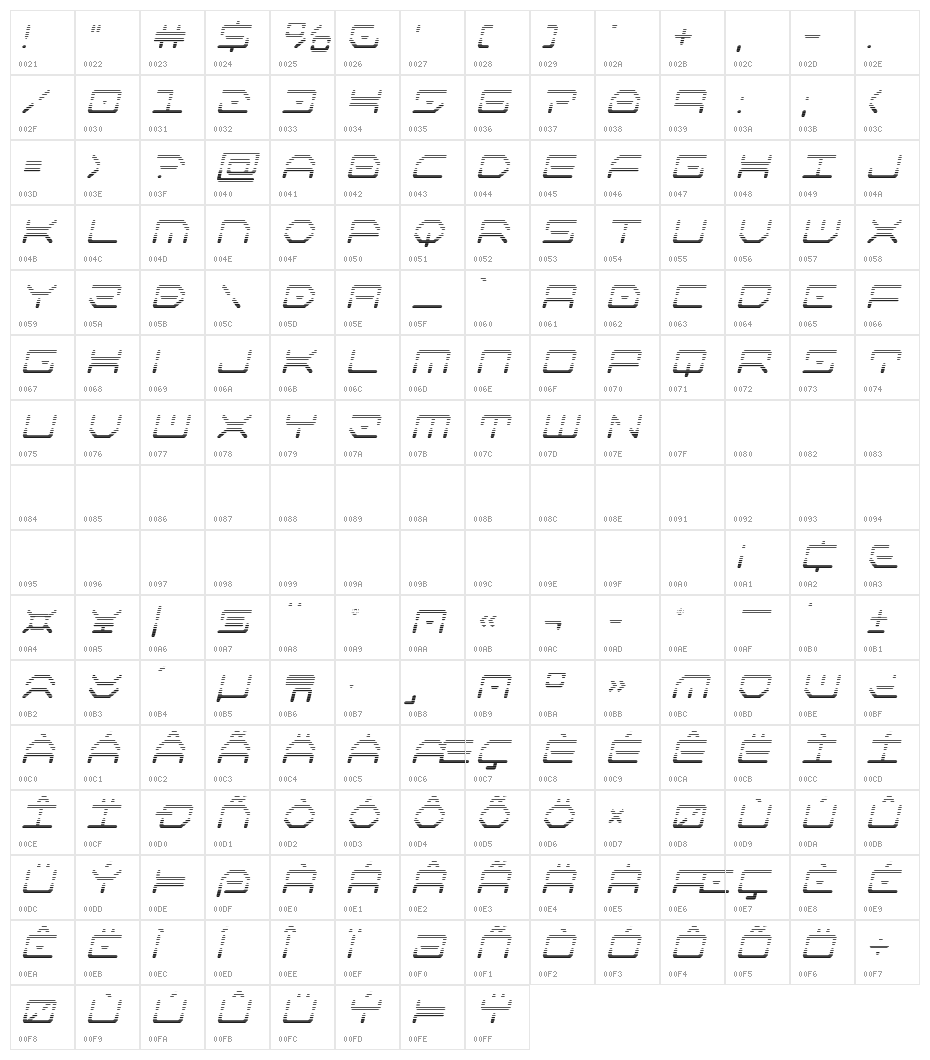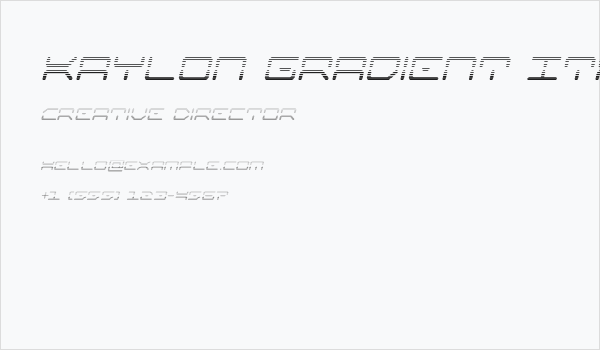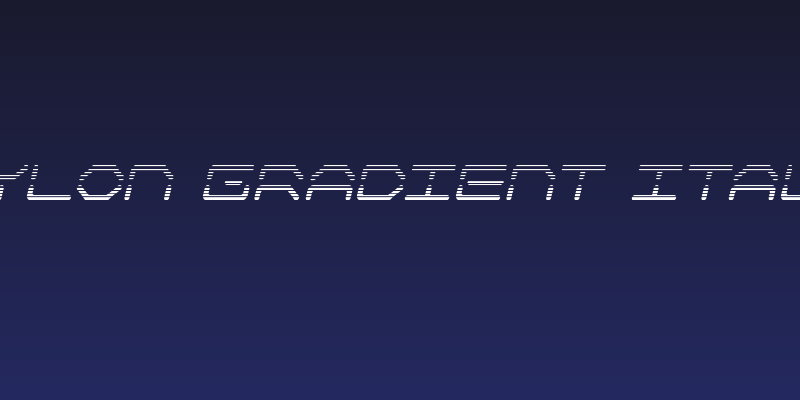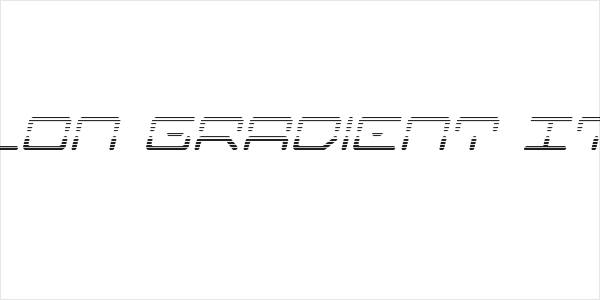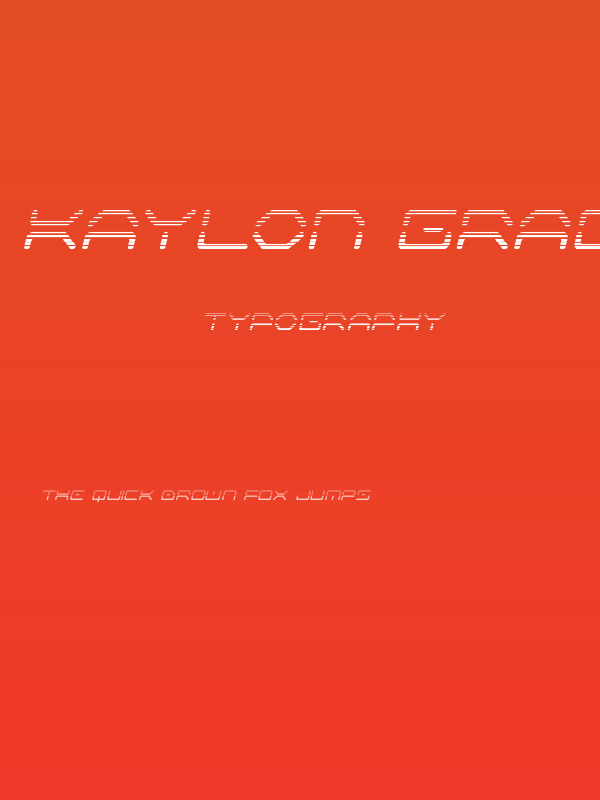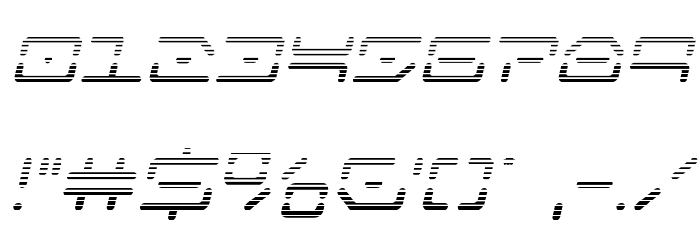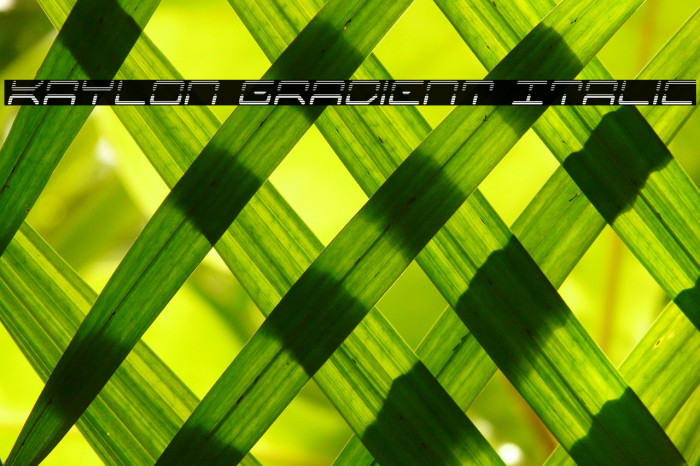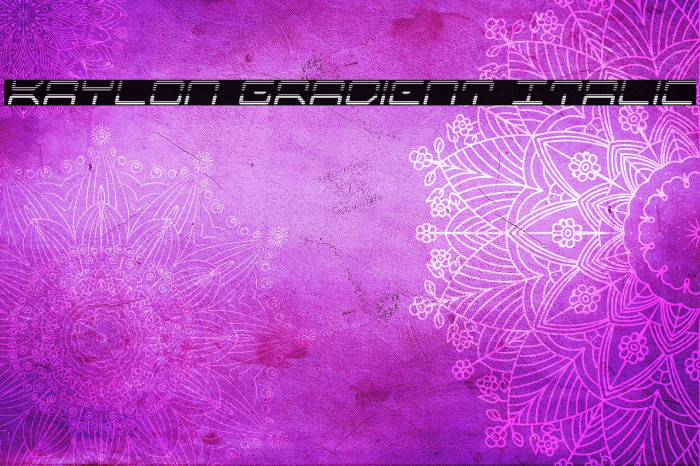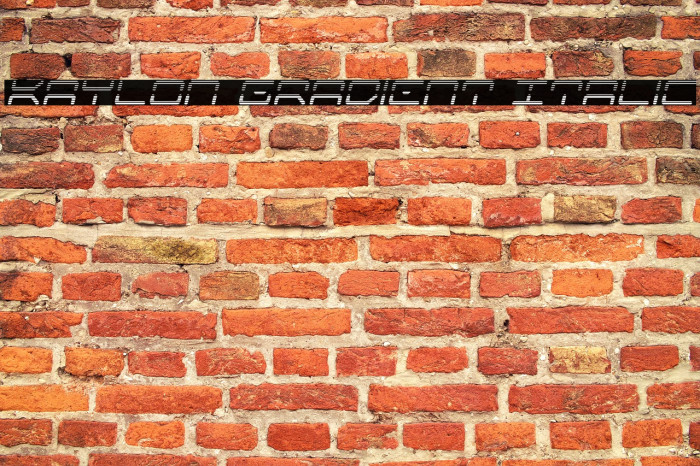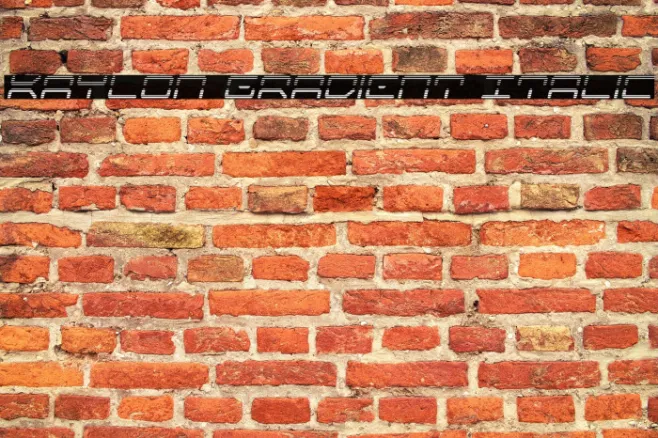
Kaylon Gradient Italic Font
Kaylon Gradient Italic Description
This font features a modern, futuristic design with a distinct gradient effect that gives it a dynamic and energetic appearance. The characters are italicized, adding a sense of motion and speed. Each letter is composed of horizontal lines that create a striped pattern, enhancing the visual interest and making it stand out. The font maintains a consistent stroke width, contributing to its sleek and streamlined look. The spacing between characters is normal, ensuring readability while preserving its unique style. This font is ideal for projects that require a contemporary and innovative touch.
| Proposed Projects | Ideal for tech branding, futuristic posters, video game titles, and digital media. |